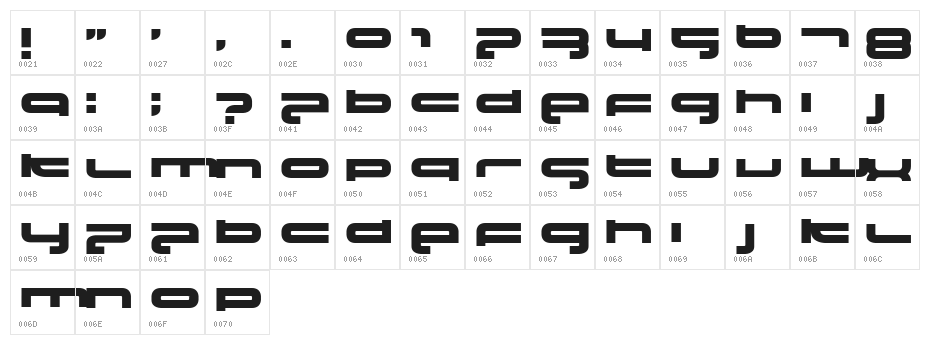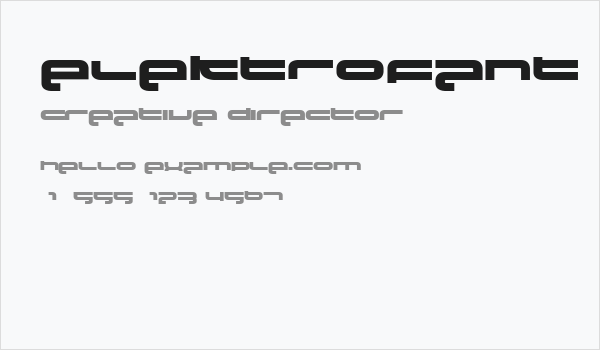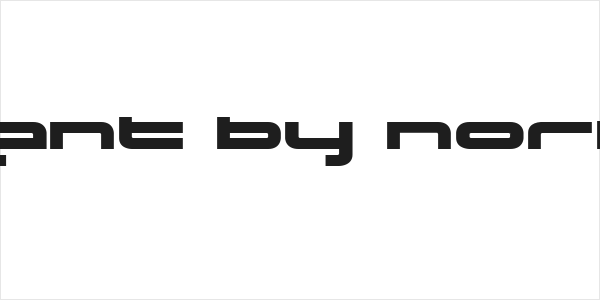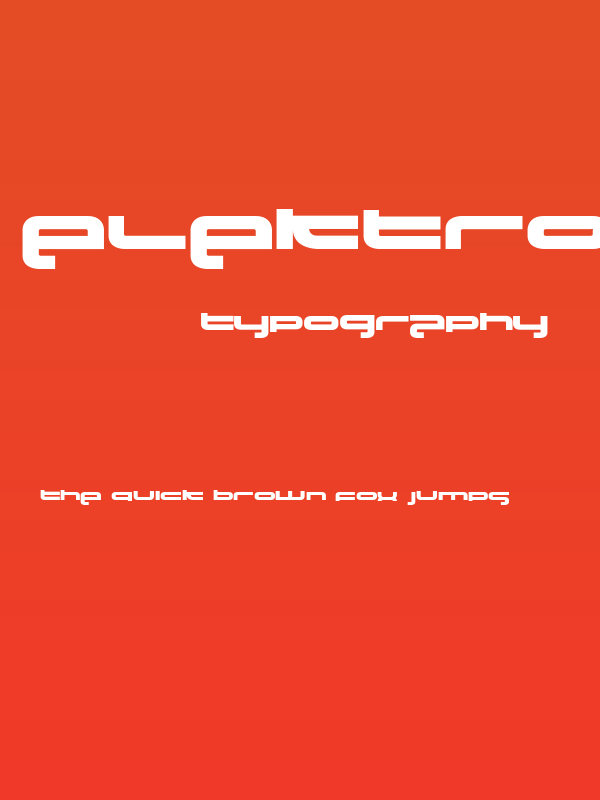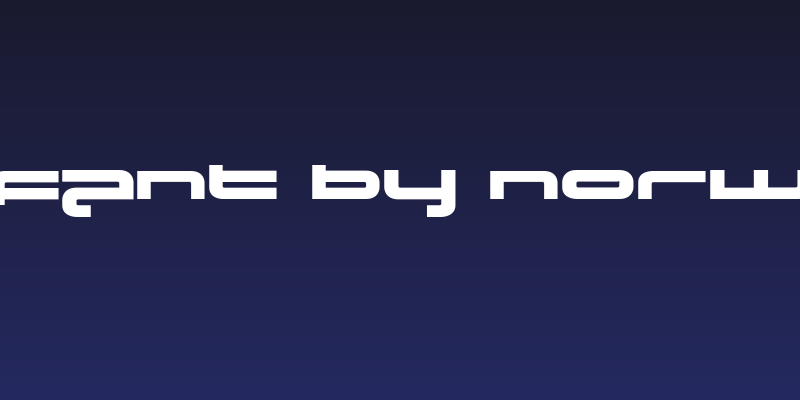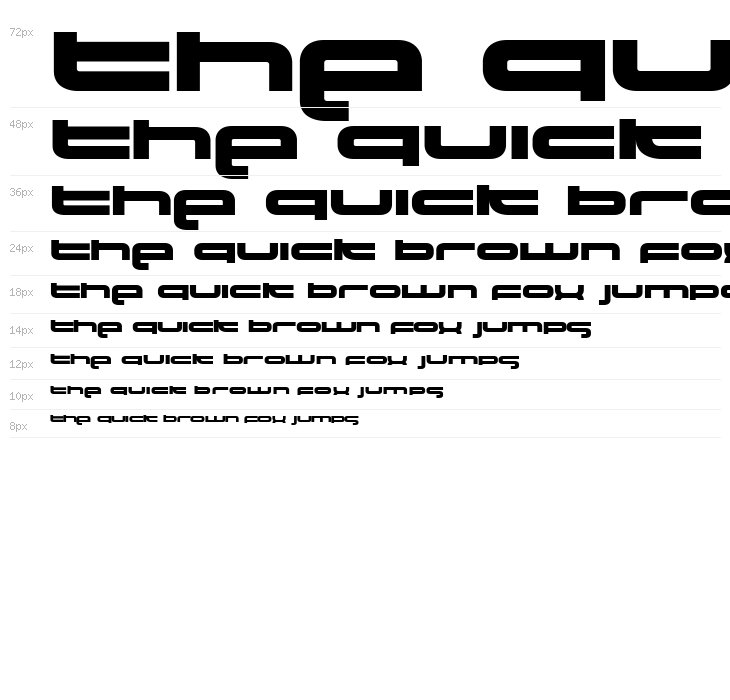
Elektrofant by Norwegian Ink Font
Elektrofant by Norwegian Ink Description
This font features a futuristic and geometric design with bold, block-like characters. The letters are uniformly thick, creating a strong visual impact. The style is highly modern, with a digital and tech-inspired aesthetic. The characters have a consistent height and width, contributing to a cohesive look. The font's unique design elements, such as the angular cuts and rounded edges, make it stand out. It is well-suited for projects that require a contemporary and edgy feel, such as technology branding, video game titles, or sci-fi themed designs.
| Proposed Projects | Ideal for technology branding, video game titles, sci-fi themes, and modern digital designs. |